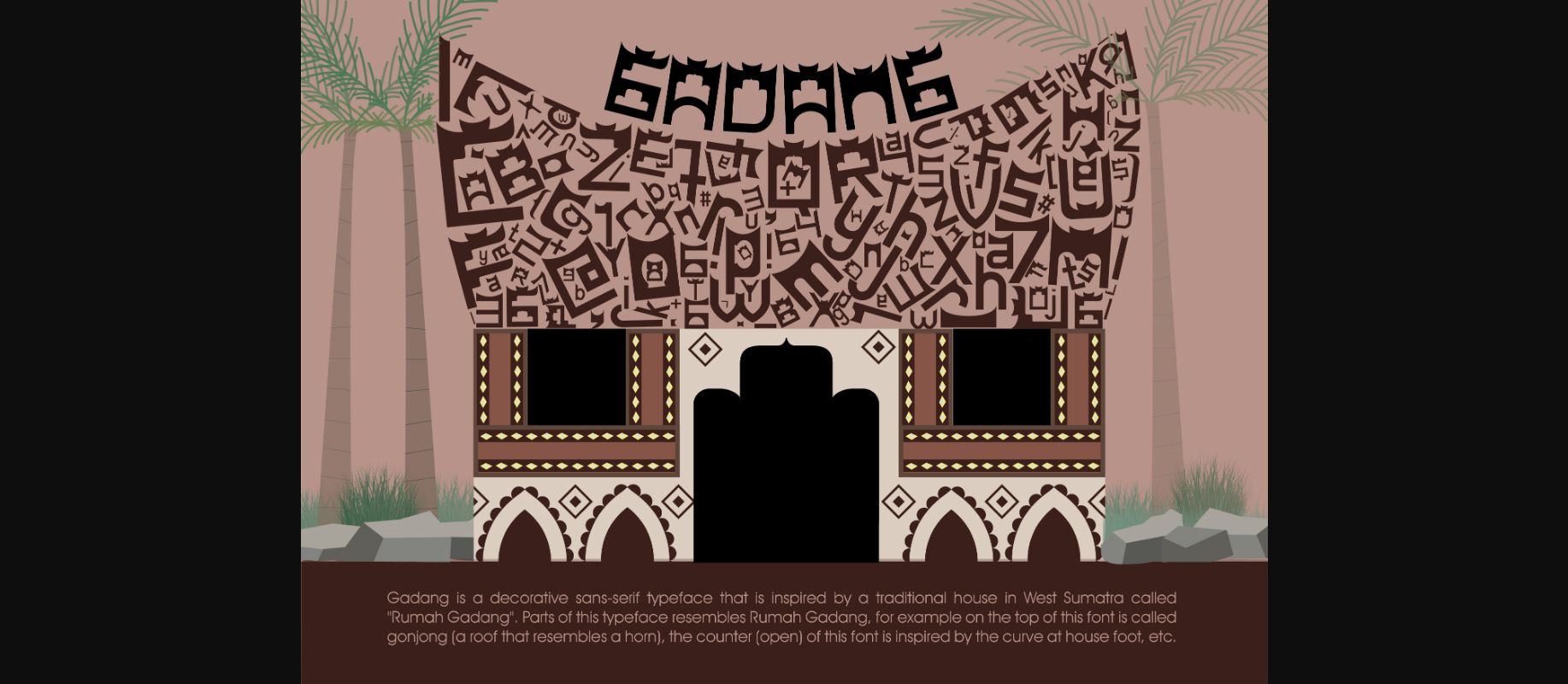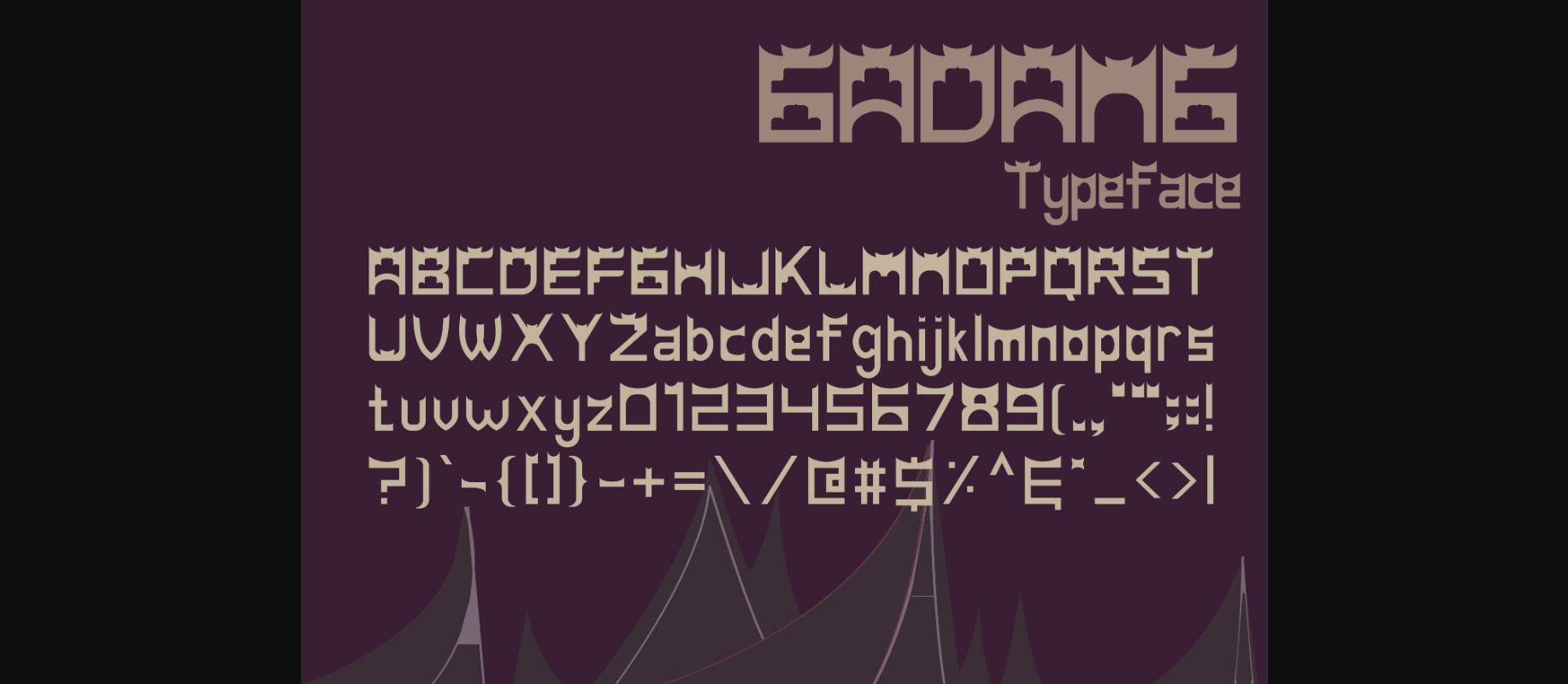
Gadang Font
About Gadang Font
Gadang is a decorative sans-serif typeface that is inspired by a traditional house in West Sumatra called “Rumah Gadang”, Parts of this font also depict Rumah Gadang. For example, the top of this font is called goniong (the roof that resembles a horn), the counter (open) of this font is like the arch-shaped bottom of the Rumah Gadang, etc.